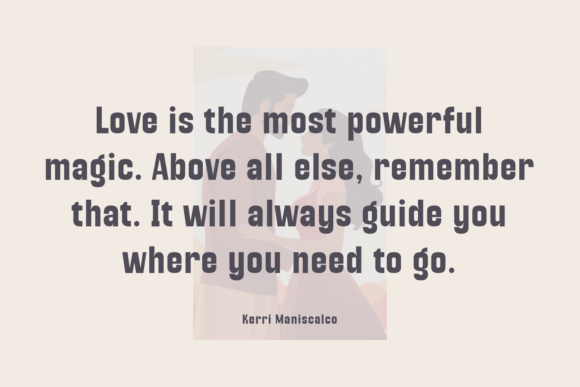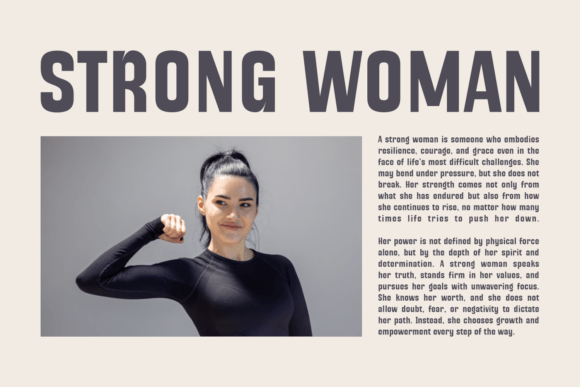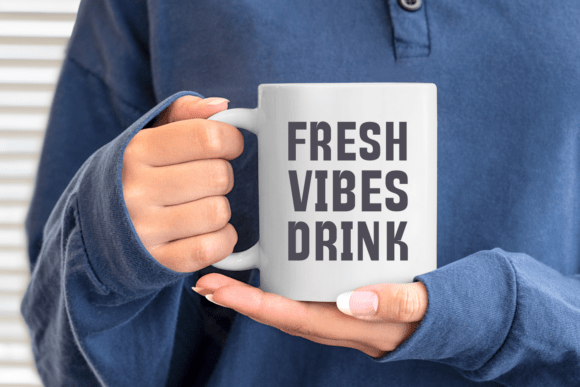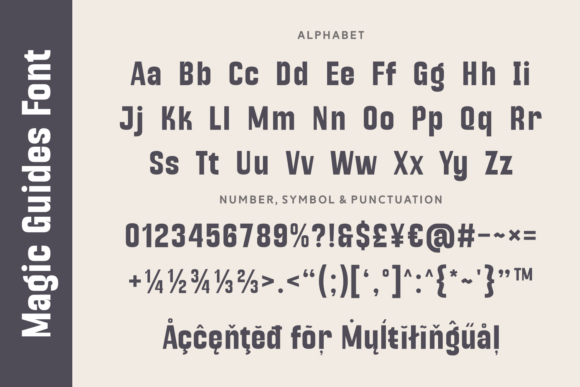
Introduction to Magic Guides Font
Magic Guides is a modern sans serif font with a bold, playful touch and a hint of whimsy.
Its clean letterforms are softened by rounded details, while decorative star accents add a magical charm This versatile typeface works beautifully for childrenโs books, branding, posters, social media, and creative projects where you want to mix professionalism with a touch of wonder.
Key Features of Magic Guides Font